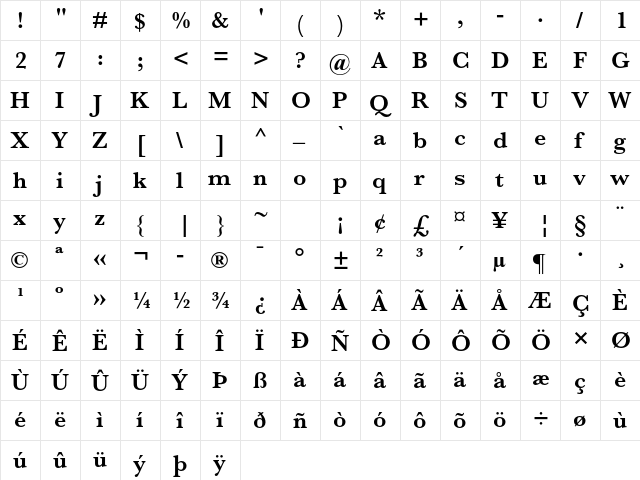
Baskerville MT Std Semibold
Design Context for Baskerville MT Std Typeface
Baskerville MT Std takes a measured approach to typography — its balanced proportions and neutral character make it a reliable workhorse for both digital and print work. The heavy weight commands attention and anchors typographic hierarchies.
Pro Tip: Pair Baskerville MT Std with a font of contrasting weight or personality to build a more expressive typographic hierarchy.